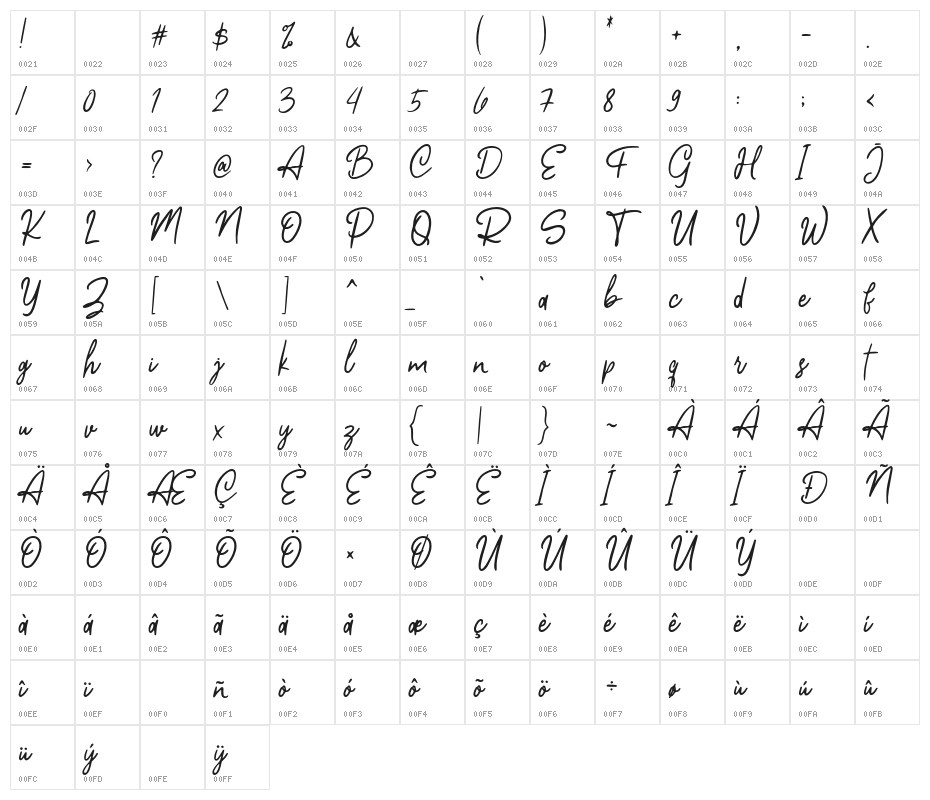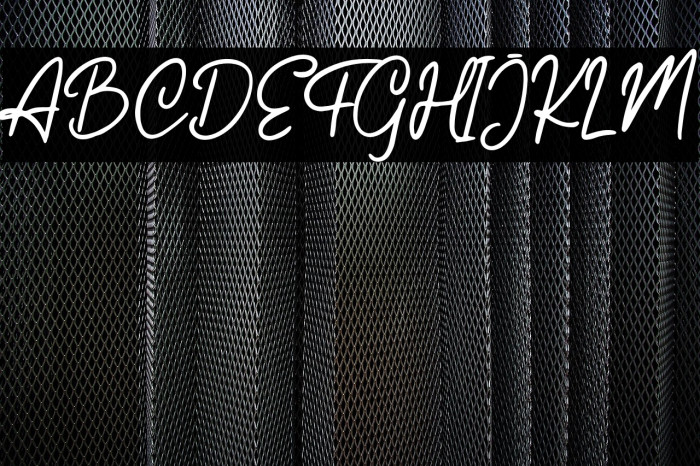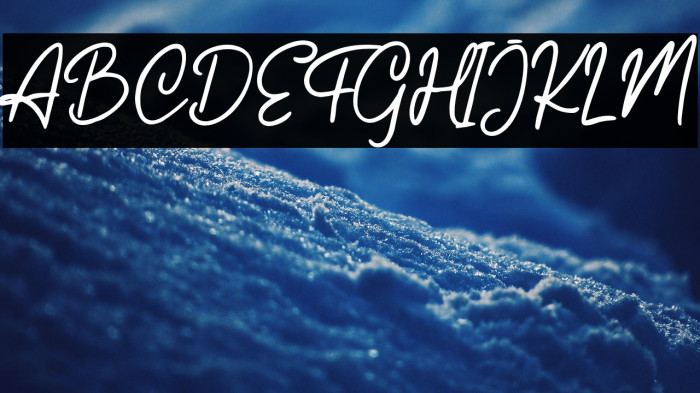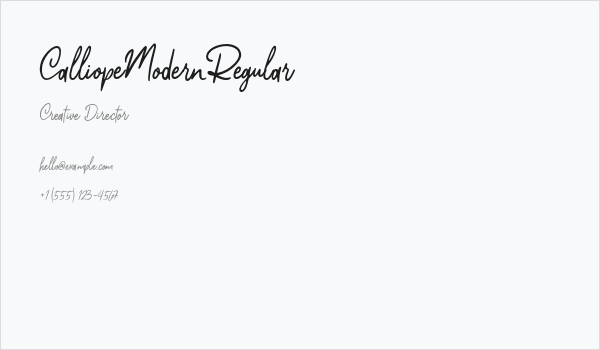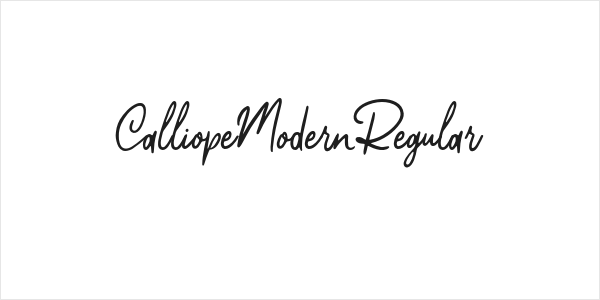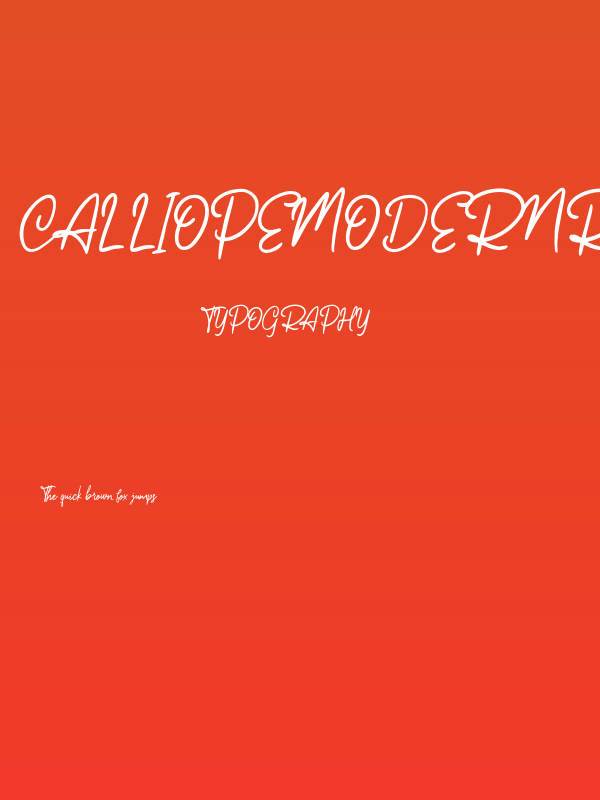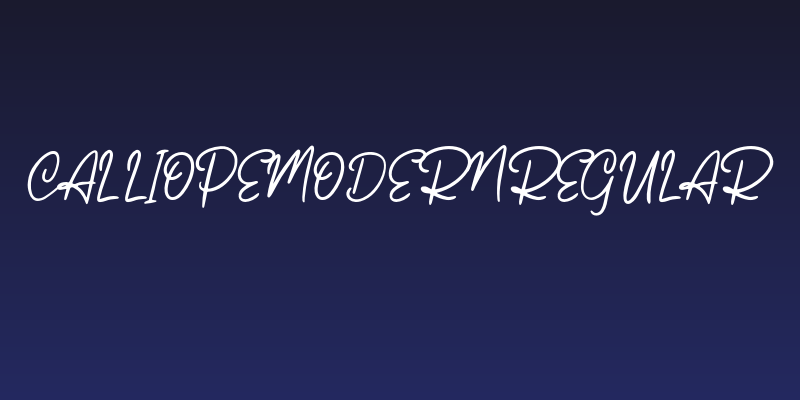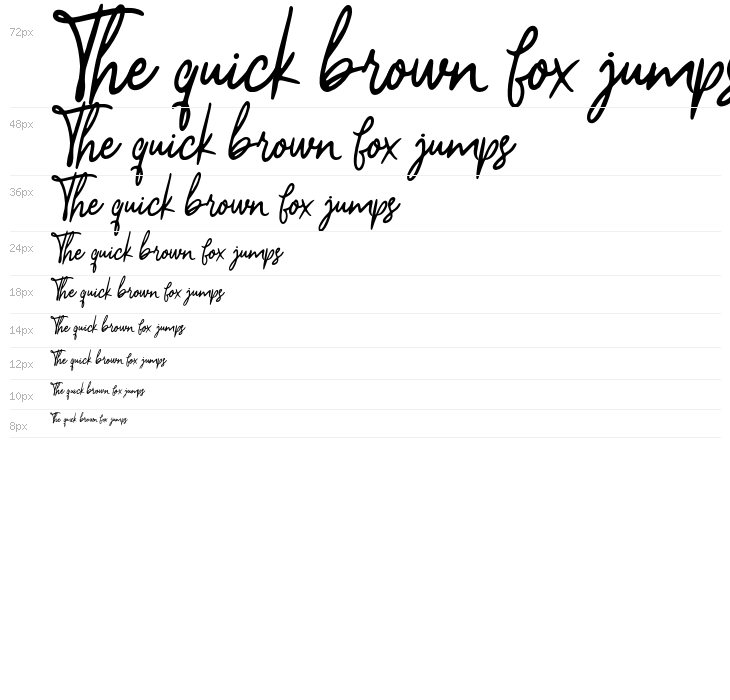
CalliopeModernRegular Font
CalliopeModernRegular Description
This font exudes a lively and dynamic energy, characterized by its flowing, cursive style. The letters are interconnected with smooth, sweeping strokes that give a sense of motion and fluidity. The uppercase letters are bold and prominent, while the lowercase letters maintain a consistent rhythm, enhancing readability. The numerals are well-integrated into the overall design, maintaining the same cursive flair. Special characters are crafted with the same attention to detail, ensuring they blend seamlessly with the alphabetic characters. This font's playful yet elegant style makes it suitable for a variety of creative applications.
Use CaseLogos, Invitations, Artistic projects
Proposed ProjectsIdeal for invitations, greeting cards, branding, and artistic projects.